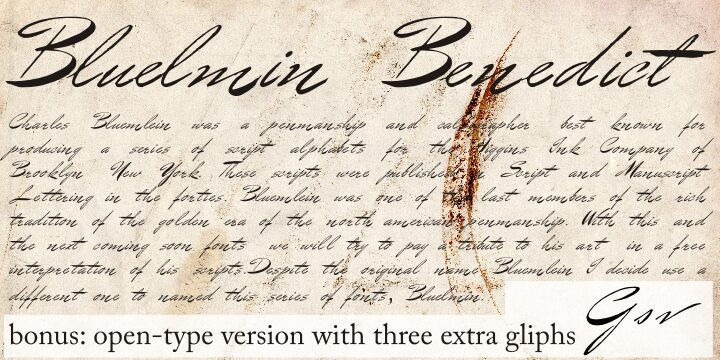
Bluelmin Benedict by Paulo W. is a free calligraphic script with dramatic shifts from broad downstrokes to hairline sweeps and an emphatic forward slant. Tall, loosely joined letters push forward with sharp turns and extravagant loops.
Its rapid gestures give fashion photography a personal, hand-signed edge and suit glossy editorial magazine covers and beauty campaigns. The same restless line suits music posters and boutique branding, especially when a project favors something rawer and less mannered than formal copperplate. Its long strokes can cross into portraits or abstract ink marks, so the lettering becomes part of the artwork itself rather than a caption.
The font is named Bluelmin Benedict. Charles Bluemlein was a penman and calligrapher best known for producing a series of script alphabets for the Higgins Ink Company of Brooklyn, New York. These scripts were published in Script and Manuscript Lettering in the 1940s.
Bluemlein was one of the last members of the golden era of the North American penmanship tradition. This font is a free interpretation of his scripts. Although the original name was Bluemlein, the designer chose Bluelmin as the name for this font series.
The OpenType version includes three extra glyphs accessible through the glyph palette.